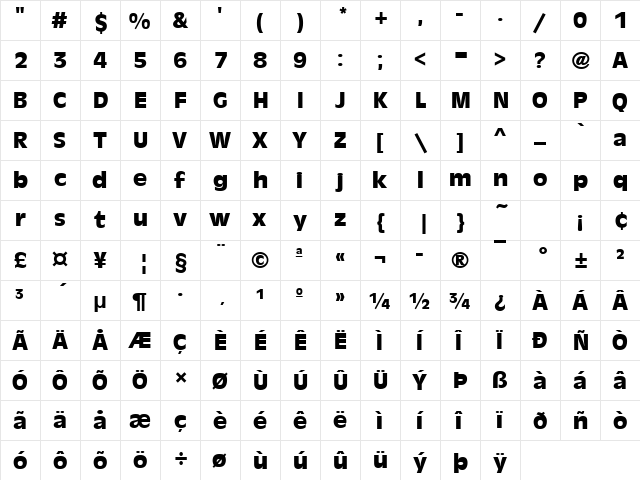
AntiqueOliT Bold
Design Context for AntiqueOliT Typeface
AntiqueOliT wears its vintage influences proudly, with letterforms that recall mid-century signage, classic packaging, and nostalgia-driven design. The heavy weight commands attention and anchors typographic hierarchies.
Ideal for diner signage, record shop branding, 70s/80s-themed projects, and heritage product labels.
Font Pairing: Combine AntiqueOliT with a simple slab or neutral sans — period-accurate companions reinforce the vintage feel without competing for attention.
Pro Tip: Lean into AntiqueOliT's period character by pairing it with aged paper textures, muted colour palettes, and vintage illustration styles.